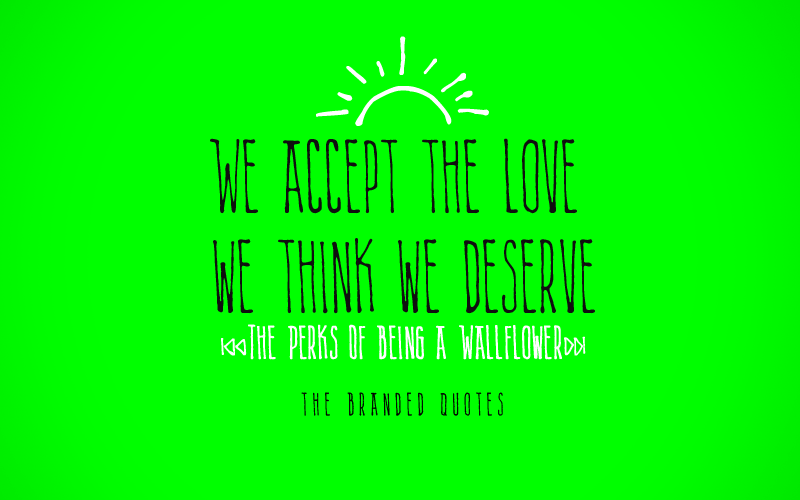
Free download Alien Playlist Font
Preview and download Alien Playlist Font. Created by The Branded Quotes in Script Various styles with Free for personal use license.
Font name: | Alien Playlist |
Author: | The Branded Quotes |
This version is for Personal Projects Only. Obtain the Licensed Version through our store: Commercial Use: https://sellfy.com/p/xROw/ Tall and natural like a handwritten lyrics on a notebook. Instead of punctuation marks, some characters are made like a digital playlist. Will look good on your next lyric video, blog title, photographs and album covers. Product Includes: .ttf, .otf, .woff and a hi-res texture. |